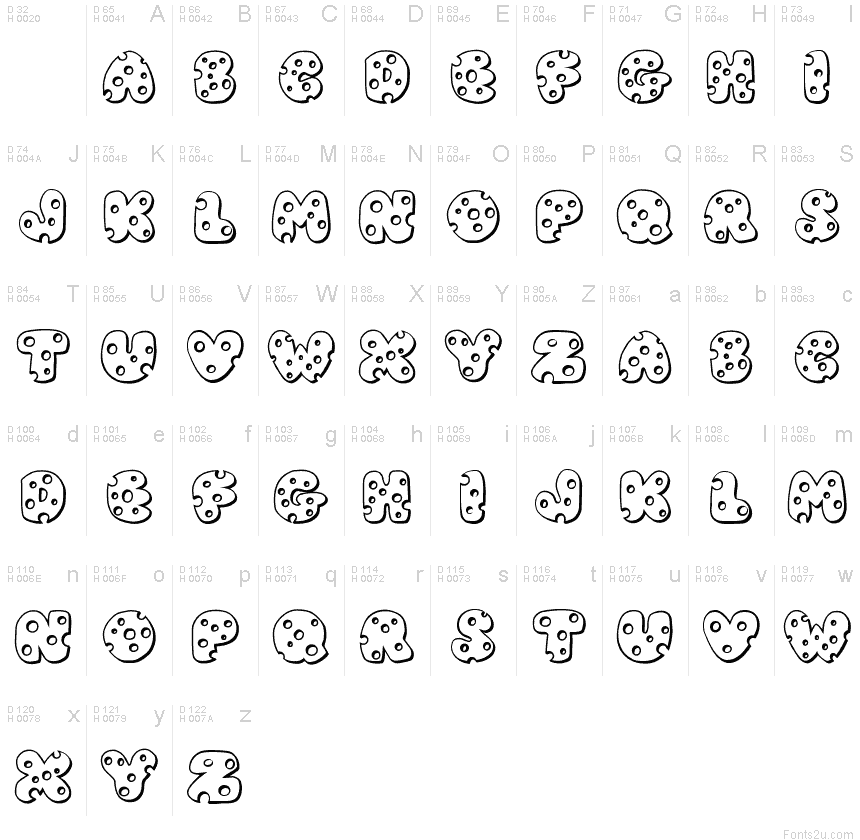
JI Swiss Cheese
JI Swiss Cheese font by Jeri Ingalls is a free decorative display typeface that looks like it’s carved straight out of a cartoon cheese block. Each chunky letter is puffed, rounded, and dotted with playful “holes,” outlined in a hand-drawn stroke that keeps everything light and bouncy. It feels soft, squishy, and a little mischievous-great whenever you need type that makes people smile before they even read the words.
Using JI Swiss Cheese, you can easily bring personality to kids’ party invitations, snack or cheese shop branding, playful posters, comic-style titles, classroom materials, and café menus. The letters are bold enough to work best at larger sizes, where all the goofy details show. Pair this free font with a clean, simple sans serif for body text so the cheesy headlines stay the main attraction.